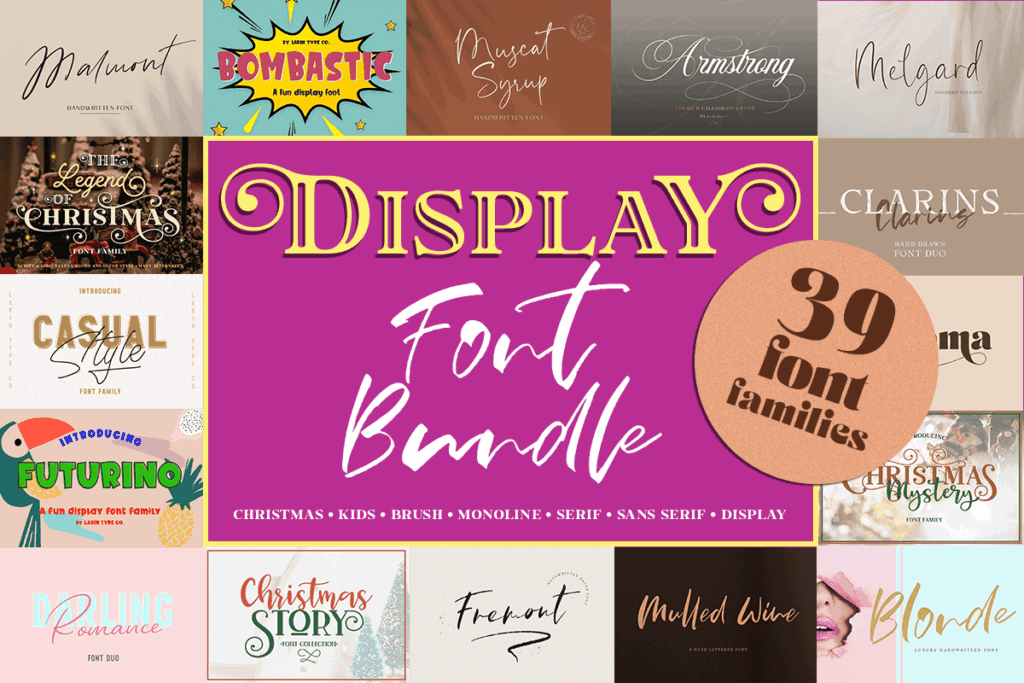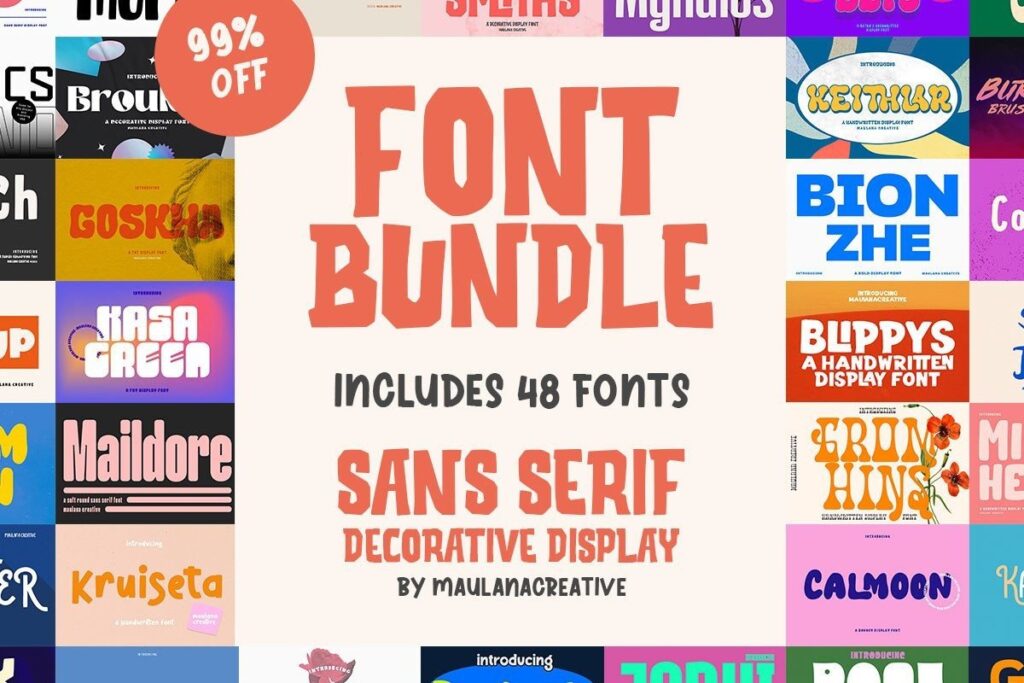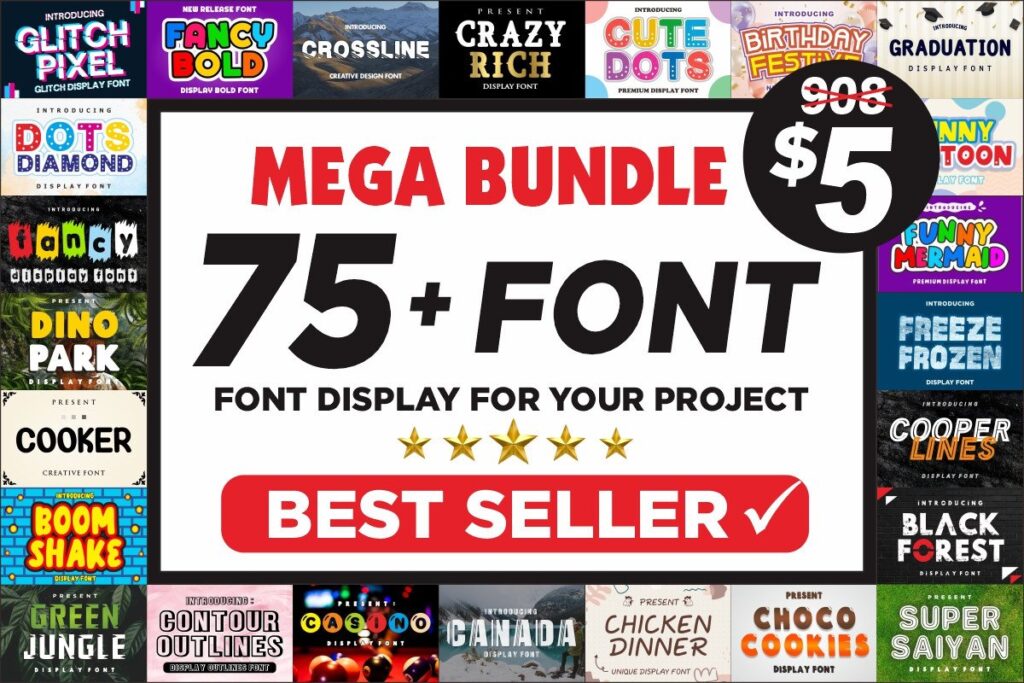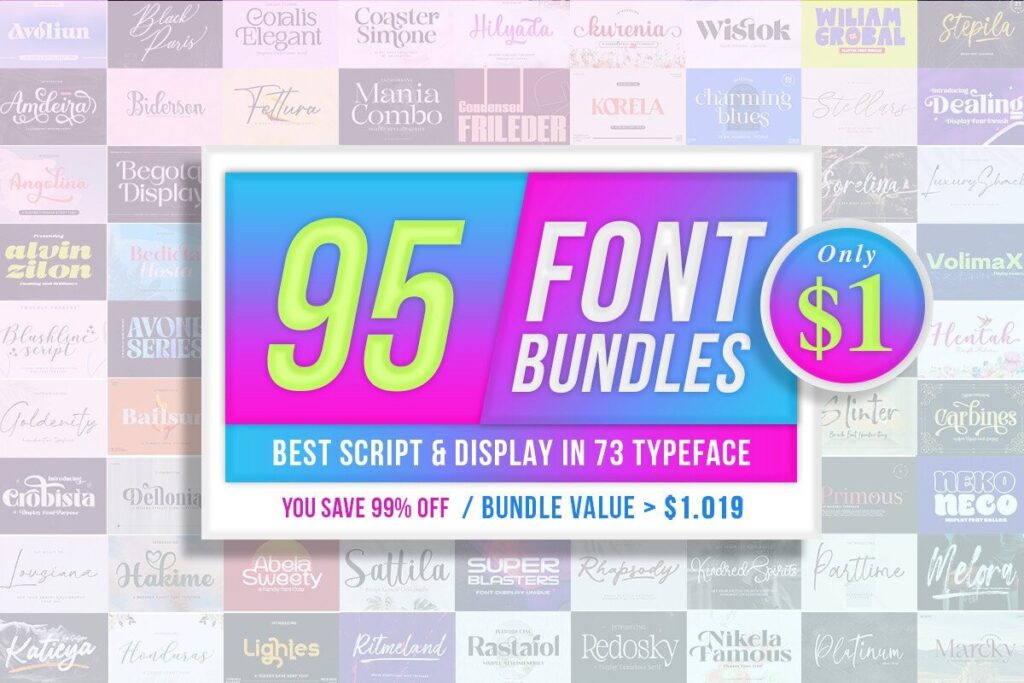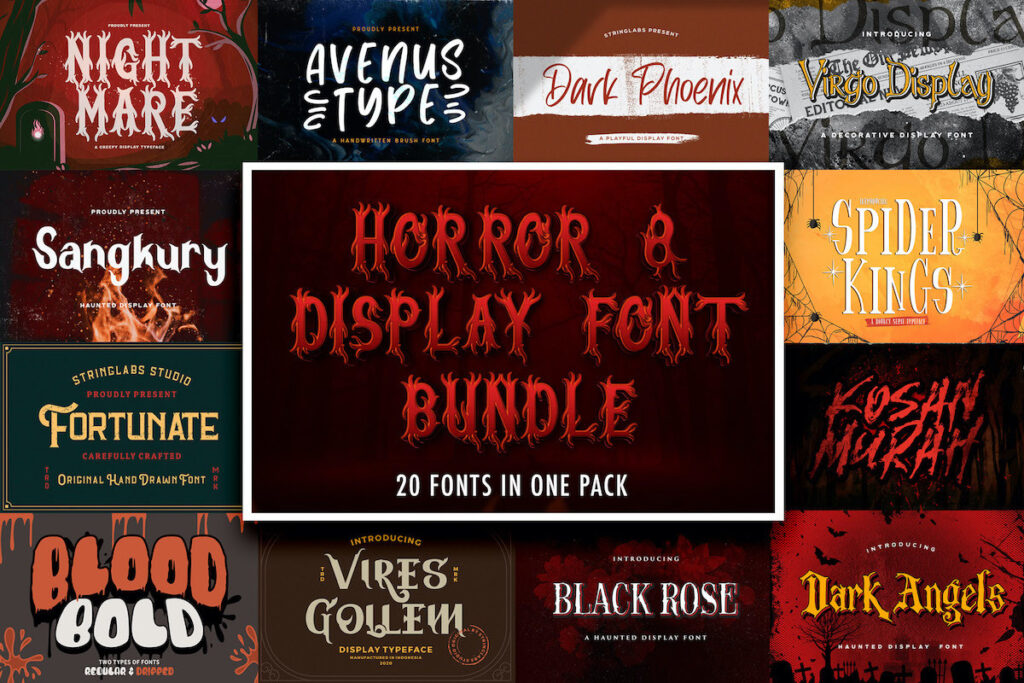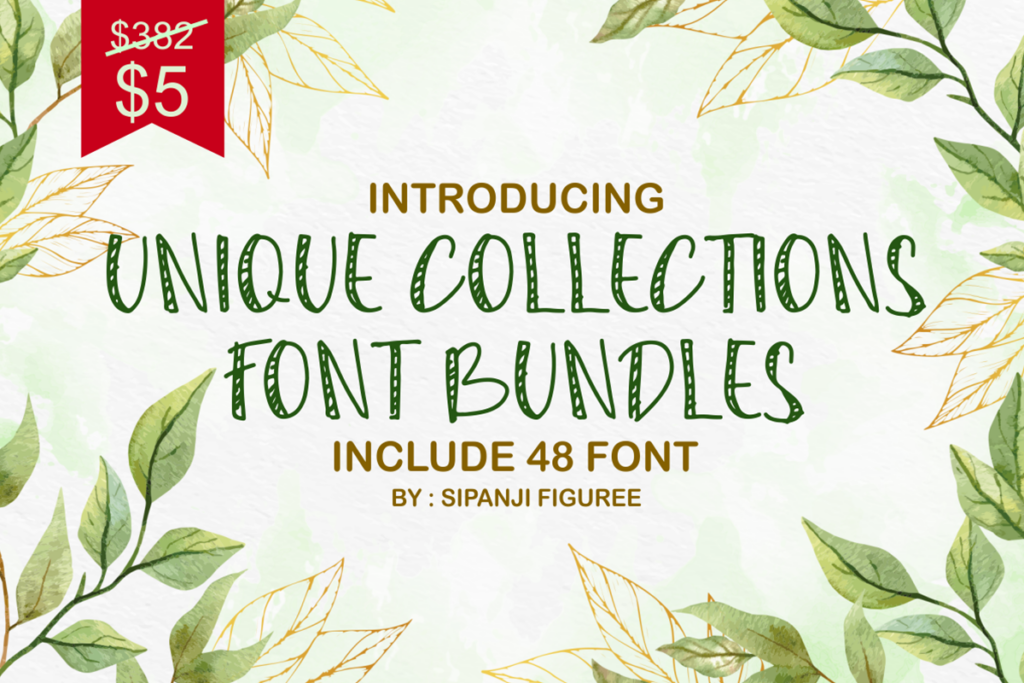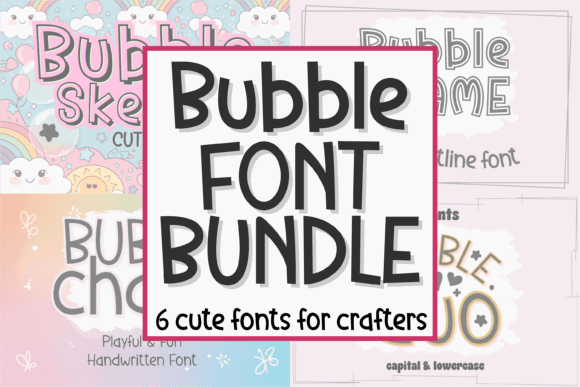
Best Display Font Bundles for Cricut: What Makes Them Work
A good display font can turn a basic Cricut project into something that looks planned, balanced, and ready to sell. The best display font bundles for Cricut projects give you more than oversized decorative lettering. They provide enough variety to cover signs, shirts, decals, cards, tumblers, party decorations, and seasonal crafts without forcing the same visual style onto everything.
My main concern is not how many fonts a bundle promises. I care more about usable letter shapes. Thick counters, clear spacing, sturdy joins, and readable capitals usually matter far more when you are weeding vinyl or cutting small cardstock text.
The 12 collections below cover modern, playful, retro, Western, spooky, and mixed-style typography.
- Best overall: Modern Display Font Bundle
- Best for clean vinyl: BUNDLE – Sans Serif Display Font
- Best for playful projects: Playful Display Font Bundle
- Best for Print Then Cut: Colorful Display Font Bundle
- Best specialty bundle: Rodeon Western Bundle
How I Picked These
I compared these bundles by cut-friendly stroke weight, open counters, smooth edges, spacing, small-size performance, stylistic range, pairing flexibility, and how well each collection fits common Cricut workflows including vinyl, cardstock, shirts, signs, stickers, and Print Then Cut projects.
The Best Display Font Bundles for Cricut
1. Modern Display Font Bundle
My pick for: the most versatile contemporary bundle
This is the bundle I would consider first for a broad craft library. It contains 28 fonts spanning display, serif, sans serif, script, and handwritten categories. The range makes it easier to create a complete composition rather than relying on one decorative alphabet for every line.
I like it for Cricut users who make products across several niches. You could use a bold display face for the main phrase on a shirt, then add a calmer sans serif for a date, name, or location. That kind of built-in contrast is more valuable than a folder full of nearly identical fonts.
Best for: small-business branding, shirts, signs
Key features: 28 fonts, mixed classifications, modern styles, strong review activity
2. Fancy Display Font Bundle
My pick for: decorative invitations and personalized gifts
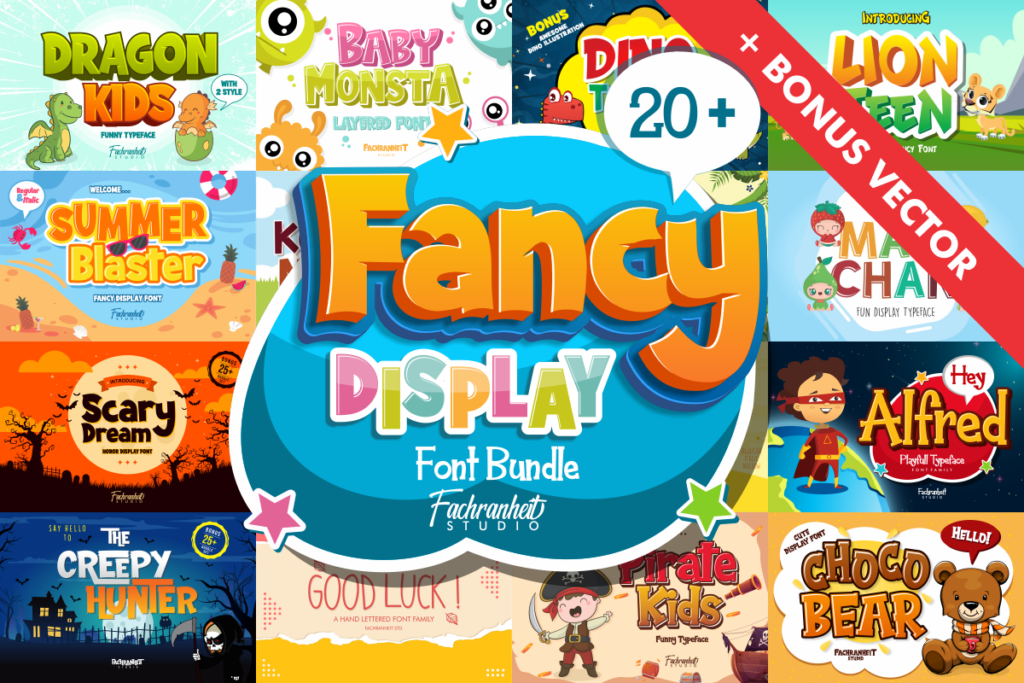
The Fancy Display Font Bundle combines 20 fonts with two graphic products. Its letterforms lean more ornamental than utilitarian, which makes the collection appealing for designs where the wording is part of the decoration.
I would reach for it when creating bridesmaid gifts, birthday invitations, decorative labels, welcome signs, or keepsake boxes. The collection may be less suitable for tiny vinyl wording, especially where a font has fine details or narrow interior spaces. For larger names and short phrases, however, that extra personality can carry the entire design.
Best for: invitations, keepsakes, decorative labels
Key features: 20 fonts, two graphics, ornamental styles, strong rating history
3. Display Font Bundle: 50-Font Collection
My pick for: building a large everyday font library
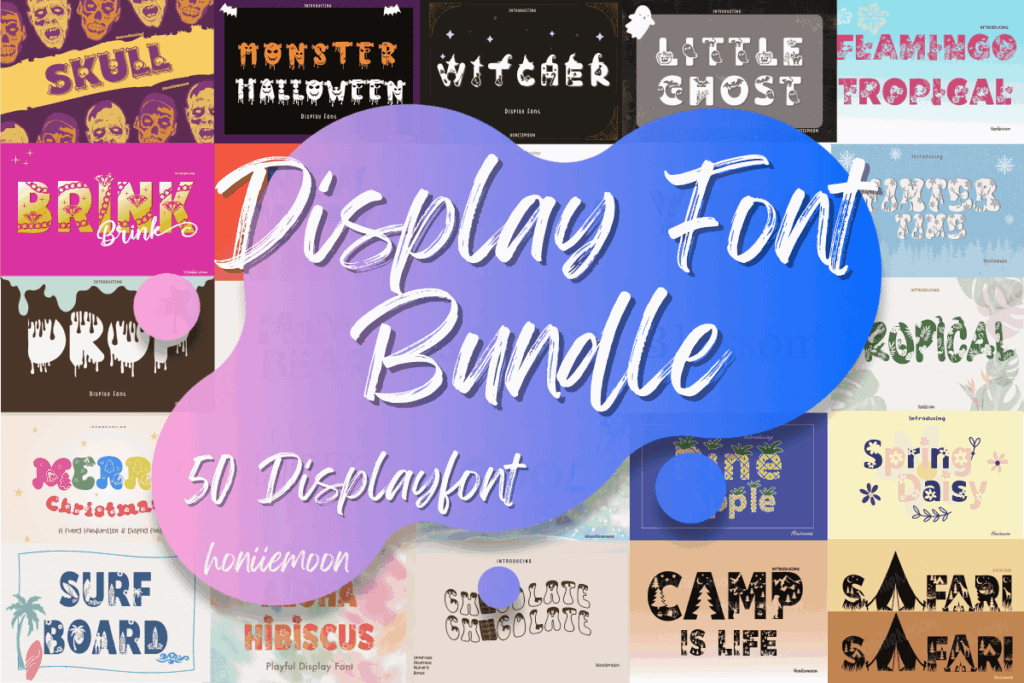
With 50 fonts, this Display Font Bundle is one of the largest straightforward collections on my list. Its main advantage is coverage. A library this size gives frequent Cricut users room to rotate type styles without making every product line look identical.
I would not install all 50 and start designing blindly. Instead, I would identify a smaller working group: perhaps three bold fonts, two retro options, two friendly rounded styles, and a few supporting faces. That keeps Cricut Design Space searches manageable and helps you develop a more consistent visual identity.
The listing displayed a 5.0 rating from 22 reviews.
Best for: frequent crafters, product collections, varied seasonal work
Key features: 50 fonts, broad selection, 5.0 displayed score, general-purpose range
4. Playful Display Font Bundle
My pick for: kids’ projects and cheerful party designs
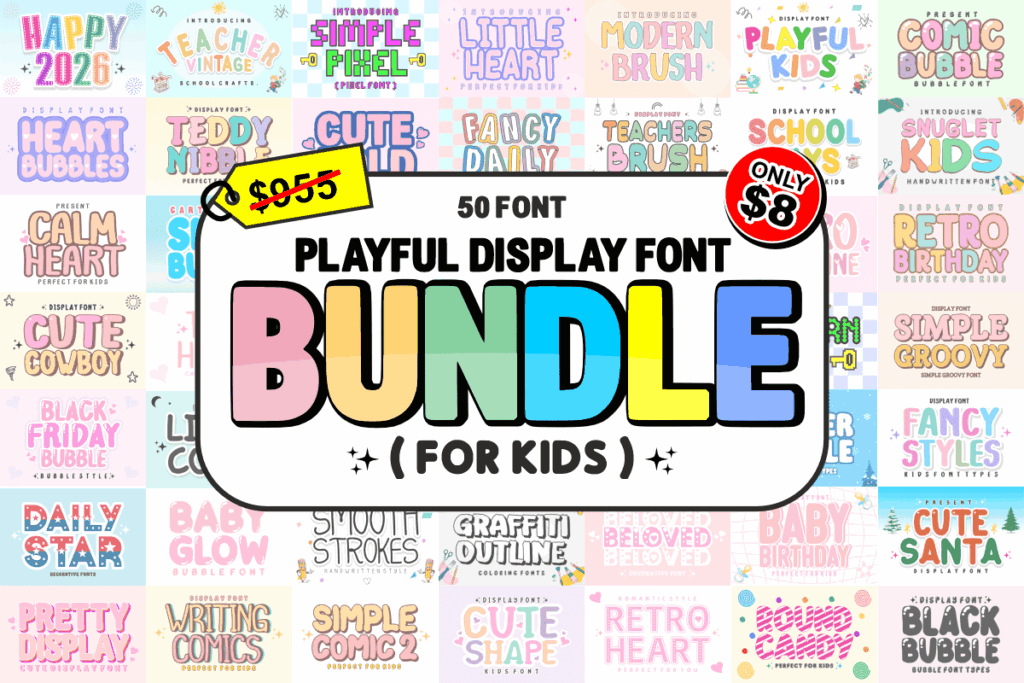
Playful display fonts are useful when a clean geometric typeface feels too formal. This bundle leans into a lighthearted look, making it a natural fit for birthday shirts, classroom labels, toy-bin decals, party banners, and family-event crafts.
My preference with playful typography is to keep the phrase short. Large rounded letters look lively on a three- or four-word design, but an entire paragraph in a novelty face quickly becomes busy. Pair the main font with a plain sans serif for smaller information.
The bundle had a visible 5.0 score from 13 reviews during research.
Best for: kids’ apparel, birthdays, classroom crafts
Cricut Design Space can work with fonts installed on your operating system, and many downloads include OTF, TTF, or both. When both are supplied, OTF is often the more feature-rich version, but the best choice is the file that installs and renders reliably in your setup.
How many fonts should I use in one Cricut design?
One or two font families are enough for most projects. Use one display font for the focal words and a simpler supporting font for dates, names, locations, or secondary phrases.